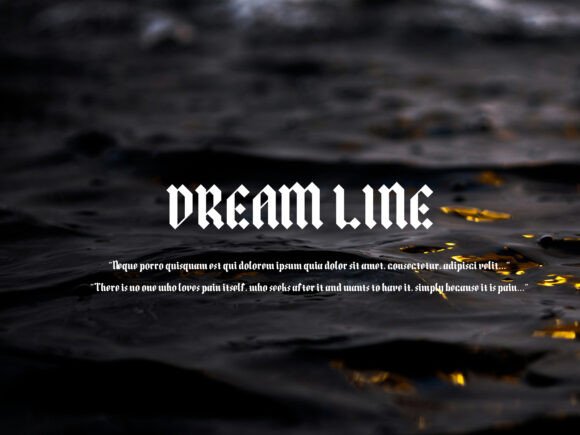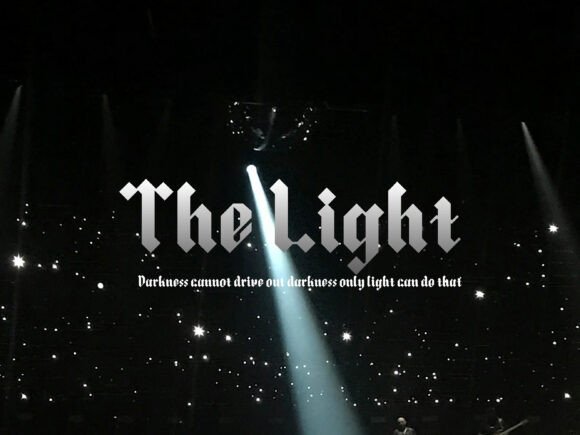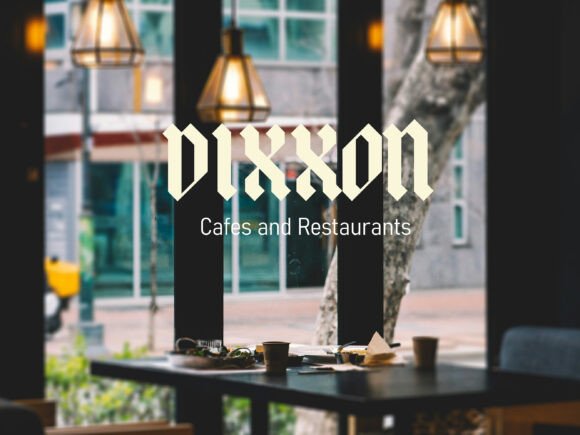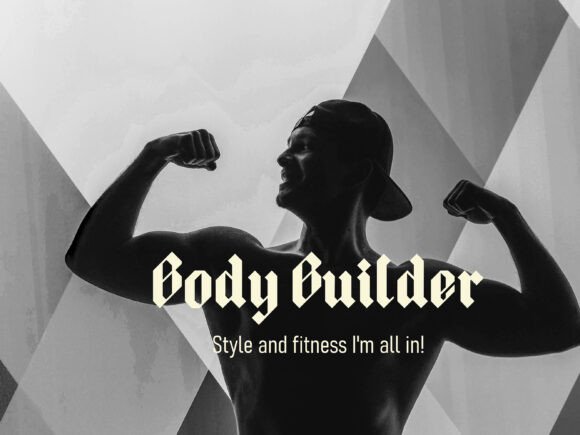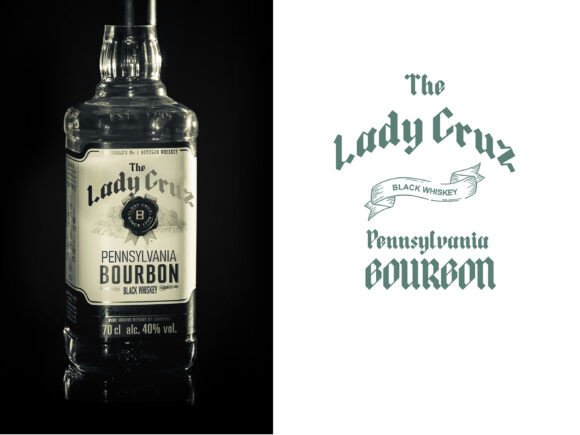
Introduction to Sivania Font
Imagine you’re working on a creative project and you need the perfect font to elevate your design. You browse through countless options, but none seem to capture the essence of your vision. That’s where Sivania Font comes in – a game-changing addition to the world of typography. This stunning redesign of the blackletter category is nothing short of breathtaking, beautifully balancing simplicity and purity for seamless readability.
As a designer, you understand the importance of having a high-quality design resource that can make or break your project. Sivania Font is more than just a font – it’s an experience that will leave a lasting impression on your audience. With its touch of gothic allure, it’s the perfect choice for designers looking to add a sophisticated twist to their creative projects.
Key Features of Sivania Font
- High-quality design resource perfect for creative projects, offering a professional look and feel.
- Features a transparent background, allowing for easy customization and integration with various design elements.
- Supports a variety of languages, making it a versatile design resource for global creative projects.
- Designed with a modern aesthetic, the Sivania Font is ideal for contemporary design applications, from digital media to print materials.
Honest Review: Sivania Font
I recently stumbled upon the Sivania Font, and I must say it’s a great addition to any designer’s toolkit. As a design resource, it offers a lot of possibilities for creative projects.
One of the standout features of this font is its high quality and crisp design. The transparent background and clean lines make it perfect for use in various design contexts.
- ✨ High-quality design with clean lines and transparent background
- ✨ Suitable for a wide range of creative projects, from digital to print design
- ⚠️ Limited character set, which may not be ideal for long-form text
- ⚠️ Not ideal for use in situations where a more extensive font library is required
Overall, I’m quite impressed with the Sivania Font. While it may have some limitations, its high quality and versatility make it a valuable resource for designers looking to elevate their creative projects. If you’re looking for a free, high-quality font for your next design project, I’d definitely recommend giving Sivania Font a try.
Common Use Cases for the Sivania Font
The Sivania Font is ideal for various creative projects, including logos, business cards, brochures, and presentations. Its high-quality design and transparent background make it a popular choice among designers.